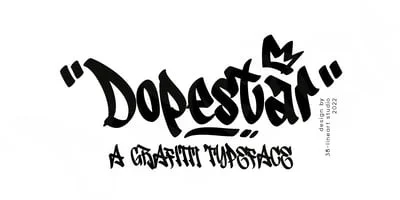
Dopestar Font
The Dopestar Font is perfect for hip-hop album covers, urban streetwear branding, music festival posters, trendy nightclub graphics, youth culture marketing, street art installations, modern graffiti designs, contemporary fashion labels, bold social media graphics, and cutting-edge entertainment materials.
What makes the Dopestar Font exciting is its electrifying ability to capture the raw energy and authentic street credibility of contemporary urban culture through bold, unapologetic letterforms that embody the confidence and creative spirit of modern hip-hop and street culture. This dynamic typeface features sharp angles, street-smart proportions, and urban-inspired character variations that instantly convey authenticity, attitude, and the fearless self-expression that defines today's most influential cultural movements. Each letter radiates the magnetic charisma and unstoppable energy of true urban stars.
The Dopestar Font family includes regular, bold, condensed, and outlined versions, along with urban symbols, street art ornaments, and hip-hop inspired decorative elements that enhance its authentic appeal across various contemporary and youth-oriented design applications.
Whether you're creating urban brand identities or designing cutting-edge entertainment materials, Dopestar Font delivers maximum impact and genuine street authenticity. Its expertly crafted bold letterforms ensure strong readability while maintaining that essential urban character that speaks to young audiences seeking real cultural credibility. The font's street features include contextual alternates, urban ligatures, and street-smart variations that automatically create authentic hip-hop aesthetics. Music producers and urban brand creators consistently choose this font for projects requiring genuine street credibility and contemporary cultural appeal. The Dopestar Font transforms ordinary text into powerful declarations of urban excellence, making it an indispensable weapon in any designer's street culture typography arsenal.